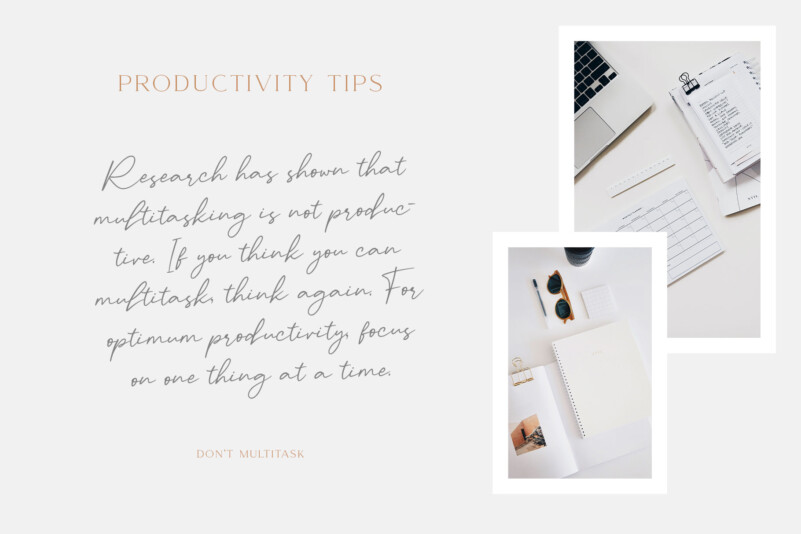
Audys Font
Audys Font is an handwritten script font based on the expression of real handwriting. Audys – Elegant Script Font will work perfectly for fashion, e-commerce brands, trend blogs, wedding boutiques or any business that wants to appear upscale and chic.
Audys – Elegant Script Font also Suitable for Logo, greeting cards, quotes, posters, branding, name card, stationary, design title, blog header, art quote, typography, art, modern envelope lettering or book design, happening style like handdrawn design or watercolor design theme, craft design, any DIY project, book title, or any purpose to make your art/design project look pretty and trendy.